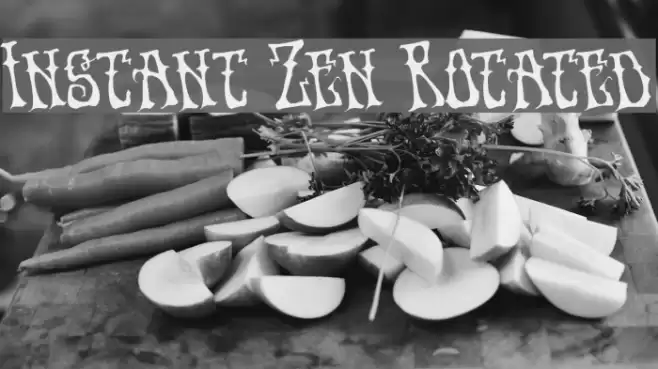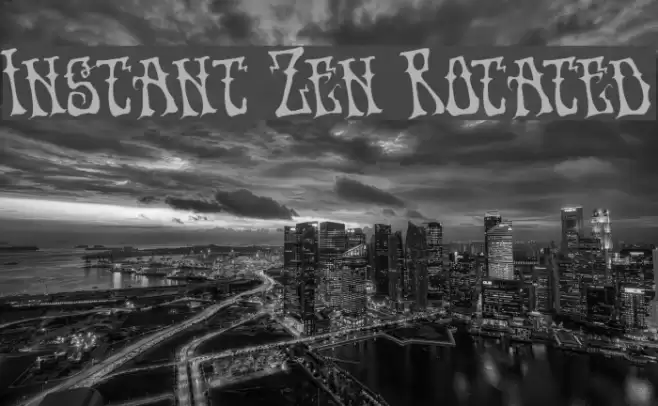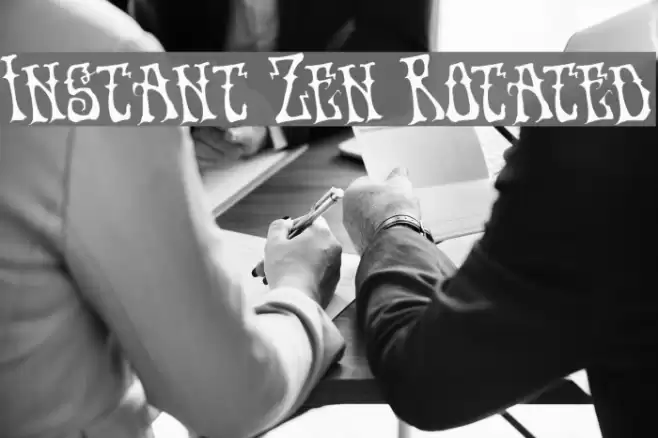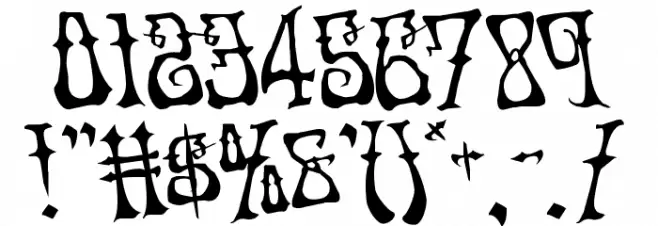
Instant Zen Rotated Font
Instant Zen Rotated Description
This font features a highly decorative and artistic style, characterized by its intricate and ornate letterforms. Each character is uniquely designed with elaborate curves and sharp edges, giving it a distinct, almost mystical appearance. The uppercase letters are particularly bold and striking, while the lowercase letters maintain the same level of detail and complexity. Numbers and special characters are equally stylized, ensuring a cohesive look across all glyphs. The overall design is reminiscent of gothic or medieval script, making it ideal for projects that require a dramatic and eye-catching typeface.
A decorative and intricate font with gothic influences and bold, ornate letterforms from Retro fonts.
- Proposed Projects: Ideal for use in fantasy-themed designs, book covers, posters, or any project requiring a dramatic and artistic typeface.